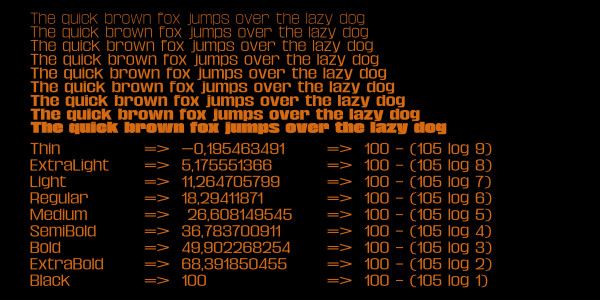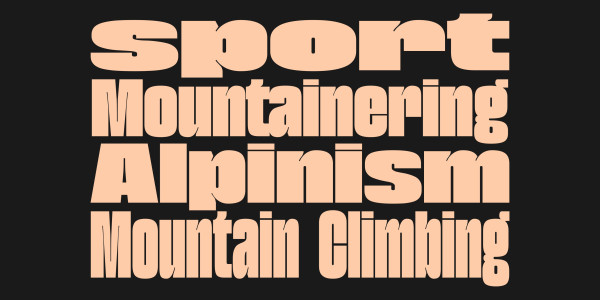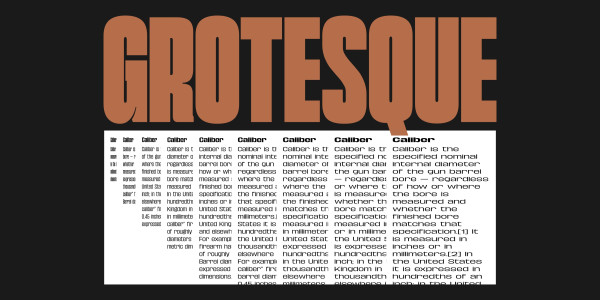
Caliber Grotesk ExtraBold Condensed Font
Caliber Grotesk ExtraBold Condensed Font – Caliber Grotesk Font, is a Sans Serif font designed by Sadat Fauzi and published in Intuisi Creative. This is a variable font with a modern geometric letter design.
Caliber Grotesk Font is the perfect choice for crafting typography with clean and precise designs. You can use it for brand identity designs, packaging designs, posters, websites, and everything in between.
The font comes in various styles. It is available in nine widths, with each width in nine weights and matching italics. That comprises of 81 styles.